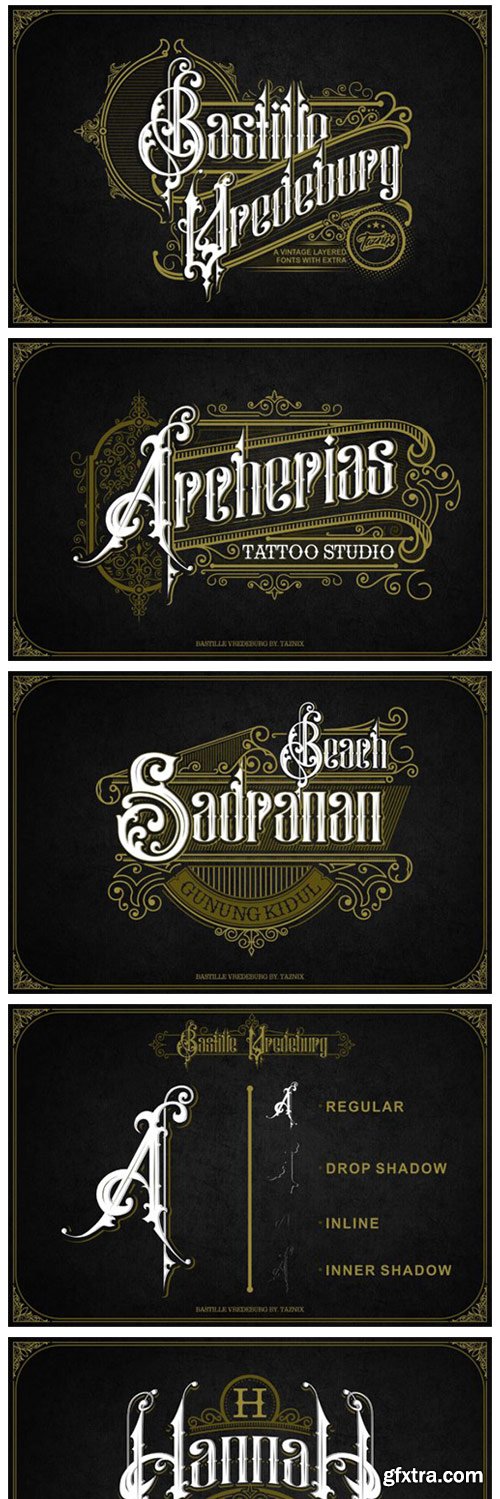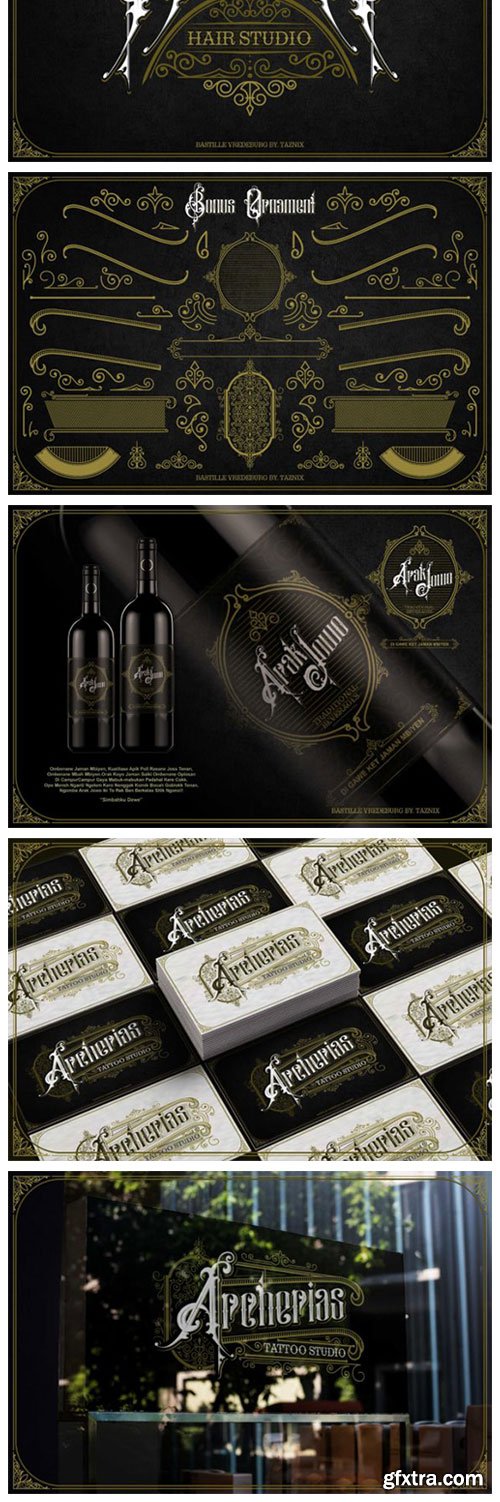
Bastille Vredeburg Font
Bastille Vredeburg is a unique display font. It features a vintage style that makes it perfect for adding a retro touch to your projects!